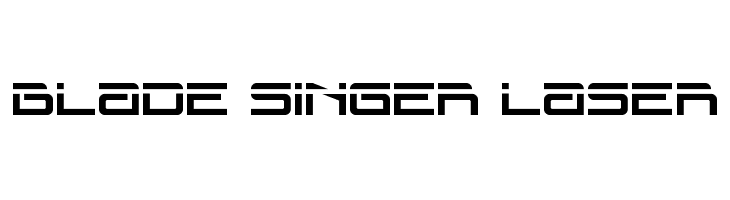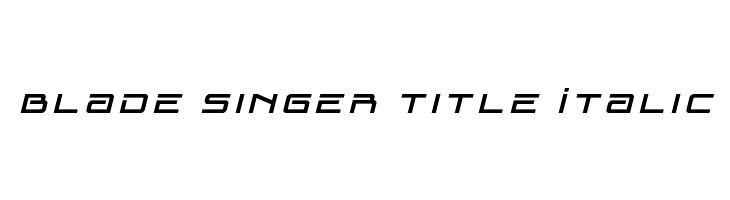
A futuristic, geometric font with sharp angles and a modern aesthetic.
A futuristic, italicized font with sharp angles and sleek lines.
A futuristic, angular font with a dynamic slant and geometric shapes.
A modern, geometric outline font with a futuristic and structured design.
A modern, geometric outline font with an italic slant and sharp, angular lines.
A futuristic, angular font with a semi-italic slant, perfect for tech and modern designs.
A futuristic, angular font with a dynamic slant and bold strokes.
A sleek, futuristic italic font with angular lines and a modern aesthetic.
A futuristic, geometric font with sharp angles and clean lines.
A modern, angular italic font with a futuristic design.